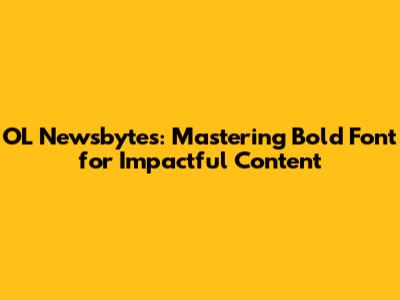
OL Newsbytes: Mastering Bold Font For Impactful Content
Hey guys! Ever wondered how to make your content pop and grab attention instantly? Well, you've come to the right place! Today, we're diving deep into the art of using bold font in your OL Newsbytes to create some seriously impactful content. Whether you're crafting headlines, highlighting key points, or emphasizing calls to action, mastering the use of bold font can significantly enhance readability and engagement. Let's get started and transform your newsbytes from bland to bold!
Understanding the Power of Bold Font
First things first, let's talk about why bold font is such a game-changer. In the realm of digital content, where attention spans are shorter than ever, making a strong visual impression is crucial. Bold font serves as a visual cue, immediately drawing the reader's eye to the most important information. Think of it as a spotlight shining on key details, ensuring they don't get lost in the sea of text. By strategically using bold font, you can guide your audience through your content, highlighting the core message and making it easier for them to grasp the essential points. Moreover, bold font adds emphasis, conveying a sense of importance and urgency. This can be particularly effective when you want to highlight deadlines, special offers, or critical instructions. But remember, the key is to use it judiciously. Overusing bold font can dilute its impact and make your content appear cluttered and overwhelming. So, let's explore some practical tips and techniques to wield the power of bold font effectively in your OL Newsbytes.
Practical Tips for Using Bold Font in OL Newsbytes
Alright, let's dive into some actionable tips you can start using right away to supercharge your OL Newsbytes with bold font.
- Highlight Key Phrases: When you have a particularly important phrase or statistic, bold it! This instantly draws the reader's eye and emphasizes the significance of the information. For example, instead of saying "Our sales increased by 20% last quarter," say "Our sales increased by 20% last quarter." See the difference?
- Emphasize Calls to Action: Want your readers to take a specific action? Make sure your call to action is bold and impossible to miss. For instance, instead of just saying "Click here to learn more," go with "Click here to learn more." The bold text creates a sense of urgency and encourages immediate action.
- Use Bold in Headings and Subheadings: Bold font in headings and subheadings helps to create a clear visual hierarchy, making it easier for readers to scan and understand the structure of your content. This is especially useful for longer newsbytes where you want to break up the text and guide the reader through different sections.
- Consistency is Key: Maintain a consistent approach to using bold font throughout your OL Newsbytes. This helps to create a professional and polished look. For example, if you bold all your calls to action, make sure you do it consistently across all your newsbytes.
- Avoid Overusing Bold: Remember, bold font is most effective when used sparingly. Overusing it can dilute its impact and make your content look cluttered and overwhelming. Use it strategically to highlight the most important information and avoid bolding entire paragraphs or sentences.
- Test and Iterate: Don't be afraid to experiment with different ways of using bold font and see what works best for your audience. Pay attention to your engagement metrics and make adjustments as needed. What resonates with one audience may not resonate with another, so keep testing and refining your approach.
Examples of Effective Bold Font Usage
Let's look at some real-world examples of how you can effectively use bold font in your OL Newsbytes. These examples will help you visualize the tips we discussed earlier and give you some inspiration for your own content.
Example 1: Announcing a New Product Launch
Instead of:
We are excited to announce the launch of our new product, the "XYZ Widget." The XYZ Widget is a revolutionary new tool that will help you streamline your workflow and boost your productivity.
Try this:
We are excited to announce the launch of our new product, the "XYZ Widget." The XYZ Widget is a revolutionary new tool that will help you streamline your workflow and boost your productivity.
The bold font highlights the name of the product, making it stand out and memorable.
Example 2: Highlighting a Special Offer
Instead of:
For a limited time, get 20% off all our products. This offer is valid until the end of the month.
Try this:
For a limited time, get 20% off all our products. This offer is valid until the end of the month.
The bold font emphasizes the discount, making it more appealing to potential customers.
Example 3: Guiding Users Through a Process
Instead of:
To reset your password, click on the "Forgot Password" link, enter your email address, and follow the instructions in the email.
Try this:
To reset your password, click on the "Forgot Password" link, enter your email address, and follow the instructions in the email.
The bold font highlights the key action, making it easier for users to follow the instructions.
Common Mistakes to Avoid
Now that we've covered the best practices, let's talk about some common mistakes to avoid when using bold font in your OL Newsbytes. Avoiding these pitfalls will help you maintain a professional and effective communication style.
Conclusion: Embrace the Bold!
So there you have it, folks! Mastering the art of using bold font in your OL Newsbytes can significantly enhance the impact and readability of your content. By following these tips and avoiding common mistakes, you can create newsbytes that grab attention, convey your message effectively, and drive results. Remember to use bold font strategically, maintain consistency, and always test your approach to see what works best for your audience. Now go out there and make your content bold!